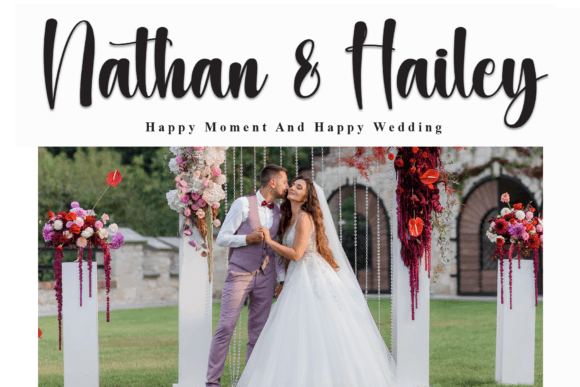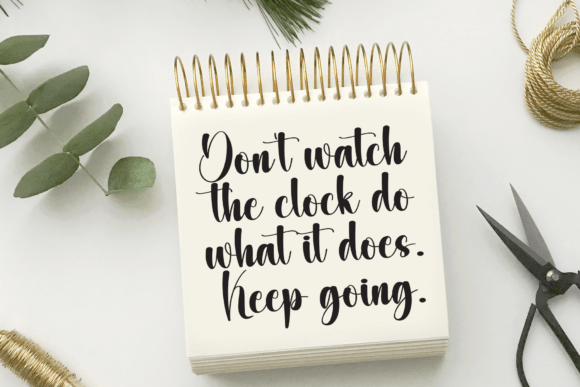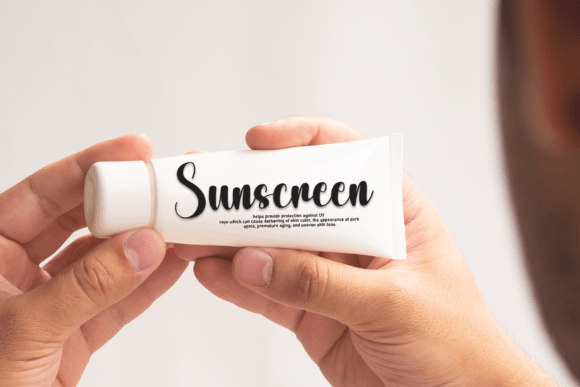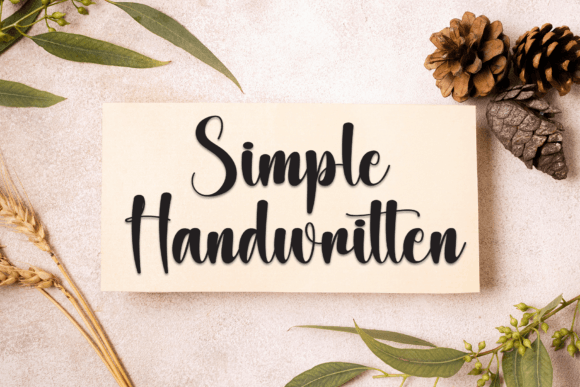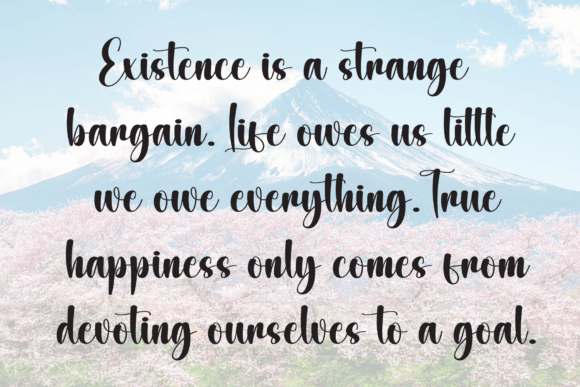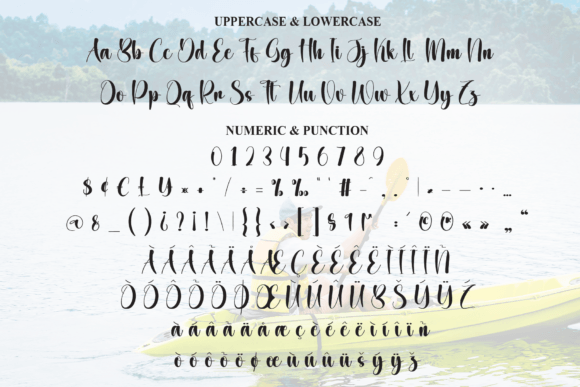
Introducing Boat Banana Font: The Perfect Blend of Modern Charm and Effortless Elegance
Are you on the hunt for a font that can add a personal touch to your creative projects? Look no further than Boat Banana Font, a modern and charming handwritten font that’s perfect for designers, crafters, and anyone looking to add a touch of elegance to their work. With its fluid, cohesive strokes and friendly appearance, Boat Banana is ideal for personal blogs, heartfelt invitations, boutique branding, and so much more.
The Characteristics of Boat Banana Font
Boat Banana Font is a beautifully crafted handwritten font that boasts a range of characteristics that set it apart from other fonts. Its fluid, cohesive strokes give it a smooth, effortless feel that’s perfect for creating a sense of elegance and sophistication. The font’s friendly appearance makes it approachable and inviting, adding a personal touch to any creative project.
One of the standout features of Boat Banana Font is its modern charm. This font is perfect for designers and crafters who want to create a contemporary look that’s both stylish and sophisticated. Whether you’re working on a personal blog, a boutique brand, or a heartfelt invitation, Boat Banana Font is the perfect choice.
Uses for Boat Banana Font
Boat Banana Font is a versatile font that can be used in a wide range of creative projects. Here are just a few ideas to get you started:
- Personal Blogs: Add a touch of elegance to your personal blog with Boat Banana Font. Its friendly appearance and fluid strokes make it perfect for bloggers who want to create a warm and inviting atmosphere.
- Heartfelt Invitations: Create beautiful, one-of-a-kind invitations with Boat Banana Font. Its charming appearance makes it perfect for weddings, baby showers, and other special occasions.
- Boutique Branding: Give your boutique brand a personal touch with Boat Banana Font. Its modern charm and effortless elegance make it perfect for brands that want to stand out from the crowd.
- Crafting and Scrapbooking: Add a touch of personality to your crafting and scrapbooking projects with Boat Banana Font. Its friendly appearance and fluid strokes make it perfect for creating unique and personalized projects.
Why Choose Boat Banana Font?
So why choose Boat Banana Font over other fonts? Here are just a few reasons why designers and crafters love this font:
- Unique and Personal: Boat Banana Font is a unique and personal font that adds a touch of elegance to any creative project. Its friendly appearance and fluid strokes make it perfect for creating a warm and inviting atmosphere.
- Modern and Charming: Boat Banana Font is a modern and charming font that’s perfect for designers and crafters who want to create a contemporary look. Its effortless elegance makes it perfect for a wide range of creative projects.
- Easy to Read: Boat Banana Font is easy to read, making it perfect for body text and other applications where readability is key.
- Versatile: Boat Banana Font is a versatile font that can be used in a wide range of creative projects, from personal blogs to boutique branding.
In conclusion, Boat Banana Font is a beautiful and charming handwritten font that’s perfect for designers, crafters, and anyone looking to add a touch of elegance to their creative projects. Its fluid, cohesive strokes and friendly appearance make it perfect for personal blogs, heartfelt invitations, boutique branding, and so much more. With its modern charm and effortless elegance, Boat Banana Font is the perfect choice for anyone looking to add a personal touch to their work.